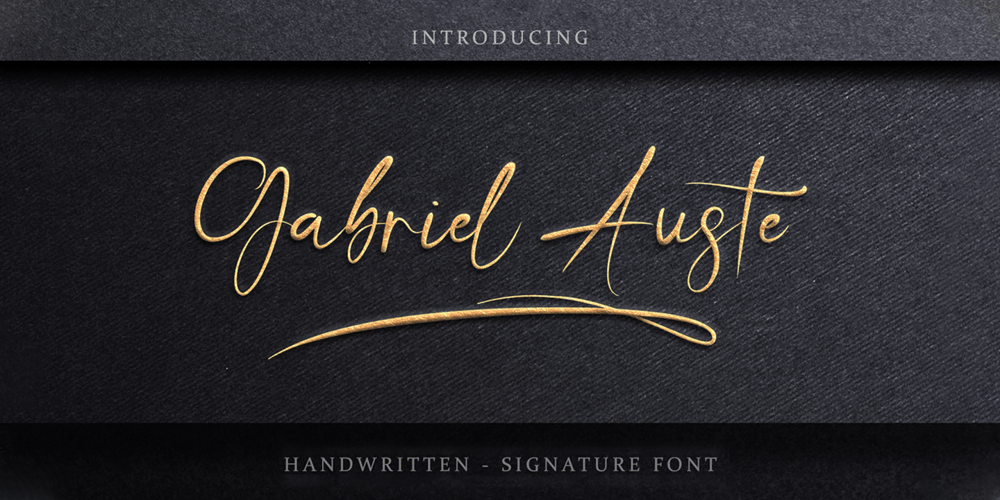
Gabriel Auste Font Family was designed by Aditiyo Dwi Putranto and published by Creaditive Design. Gabriel Auste contains 1 styles and family package options. Gabriel Auste is a beautiful and refined script font. It has a classy, elegant and modern look that can be used for logos, branding, cards who need a signature touch.